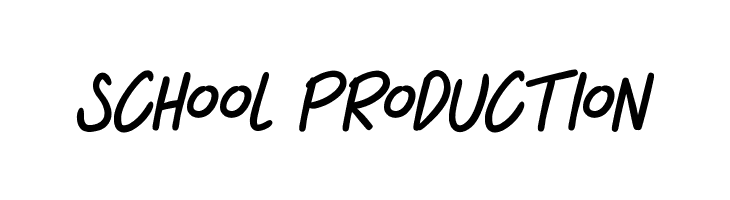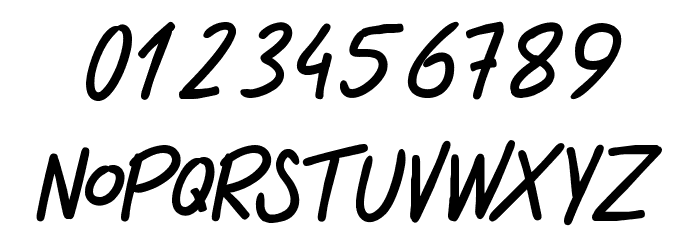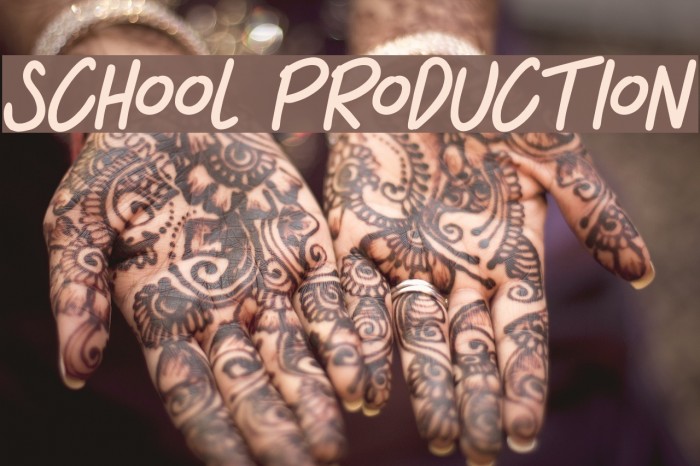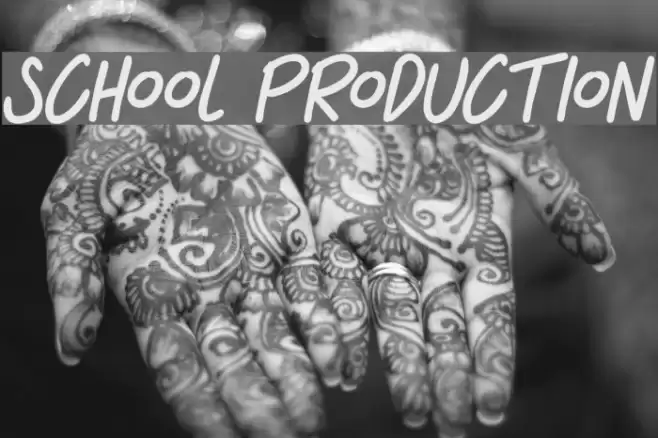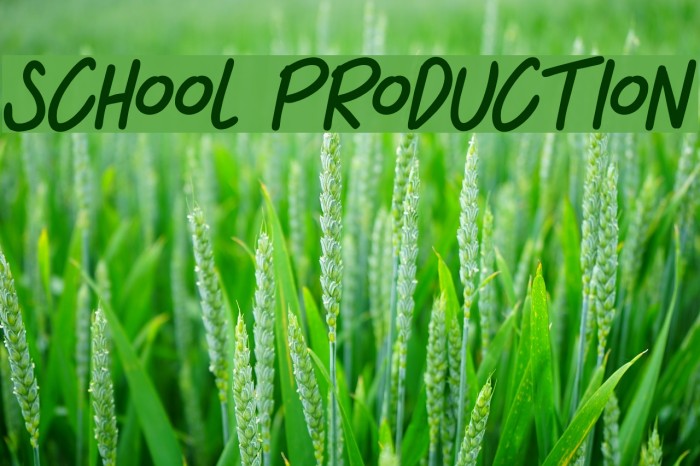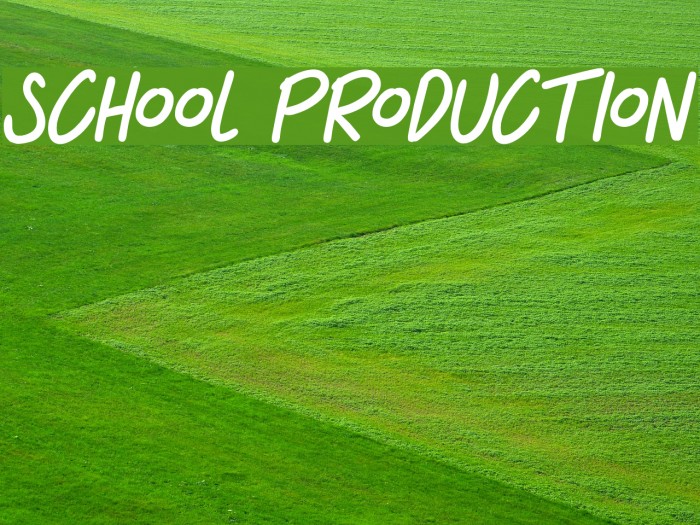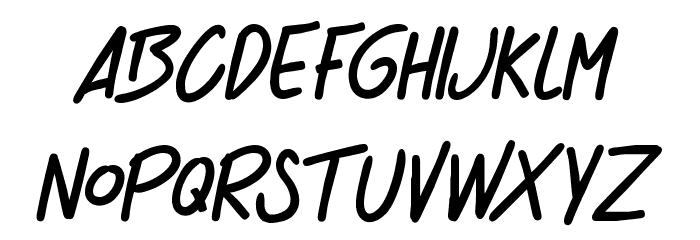
SCHOOL PRODUCTION Font
This font features a playful and energetic handwritten style, characterized by its smooth, flowing lines and slightly slanted orientation. The letters are bold and dynamic, with a casual, informal appearance that suggests movement and spontaneity. The uppercase and lowercase letters are well-balanced, maintaining a consistent rhythm throughout the typeface. The numbers and special characters are crafted with the same lively spirit, making them an excellent match for the alphabetic characters. This font's overall design exudes a sense of fun and creativity, making it ideal for projects that aim to convey a friendly and approachable tone.
A bold, playful handwritten font with smooth, flowing lines and a casual style.
• Proposed Projects: Ideal for children's books, playful branding, greeting cards, and creative posters.
• Category: Handwritten
• Bold: Yes
• Italic: No
• Weight: Bold
• Width: Normal
• Character Spacing: Normal
• Contrast: Low
• Overall Style: Playful, Casual
• Use Case: Logos, Posters, Greeting Cards